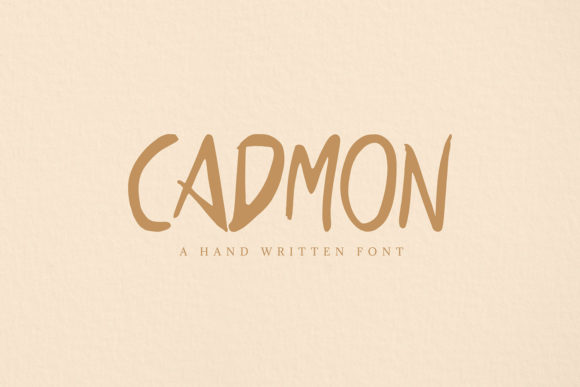
Unveil the Beauty of Cadmon Font: The Perfect Touch for Your Wedding Photos
In the tapestry of your wedding memories, every detail holds significance. From the radiant bride to the adoring groom, each moment is a jewel to be cherished. Let Cadmon Font grace your wedding photos, adding an enchanting touch that captures the essence of your love story.
Cadmon, a creation by Creative Tacos, is a font that dances with elegance and simplicity. Its relaxed, brushed strokes evoke a sense of timeless romance, perfectly complementing the joy and warmth of your special day. With Cadmon, you'll transform your photos into captivating works of art, preserving the magic of your union for eternity.
This versatile script font is a true gem in the world of typography. Whether you're crafting save-the-dates, invitations, or thank-you cards, Cadmon's flowing curves and delicate details will add a touch of sophistication and charm to every design. Its effortless readability ensures that your messages are conveyed with utmost clarity, allowing your loved ones to feel the sincerity in your words.
Beyond its aesthetic appeal, Cadmon is incredibly user-friendly. Its intuitive design makes it a breeze to work with, whether you're a seasoned designer or just starting out. Unleash your creativity and explore the endless possibilities that Cadmon offers, creating personalized keepsakes that reflect the unique bond you share with your partner.